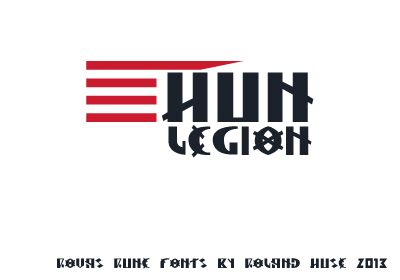
Hun Legion by Roland Huse is a free experimental display font with massive geometric forms and an angular, emblem-like silhouette. The letters shift between enclosed rectangles, sharp wedges, deep circular cuts, and abrupt diagonal strokes. The uneven widths and deliberately altered shapes give the alphabet the look of a custom coded system.
Game titles are its most convincing role. Its hard-edged shapes also suit electronic-music posters, streetwear merchandise, and club event graphics, where the lettering can become part of a bold logo or dense repeating pattern rather than ordinary text.
HUN LEGION is based on ancient Hungarian runes (rovs). Because the runes had no small caps, the small-cap forms were created by scaling the runes down.
The font is related to the previous font Hargita. Future updates may follow.